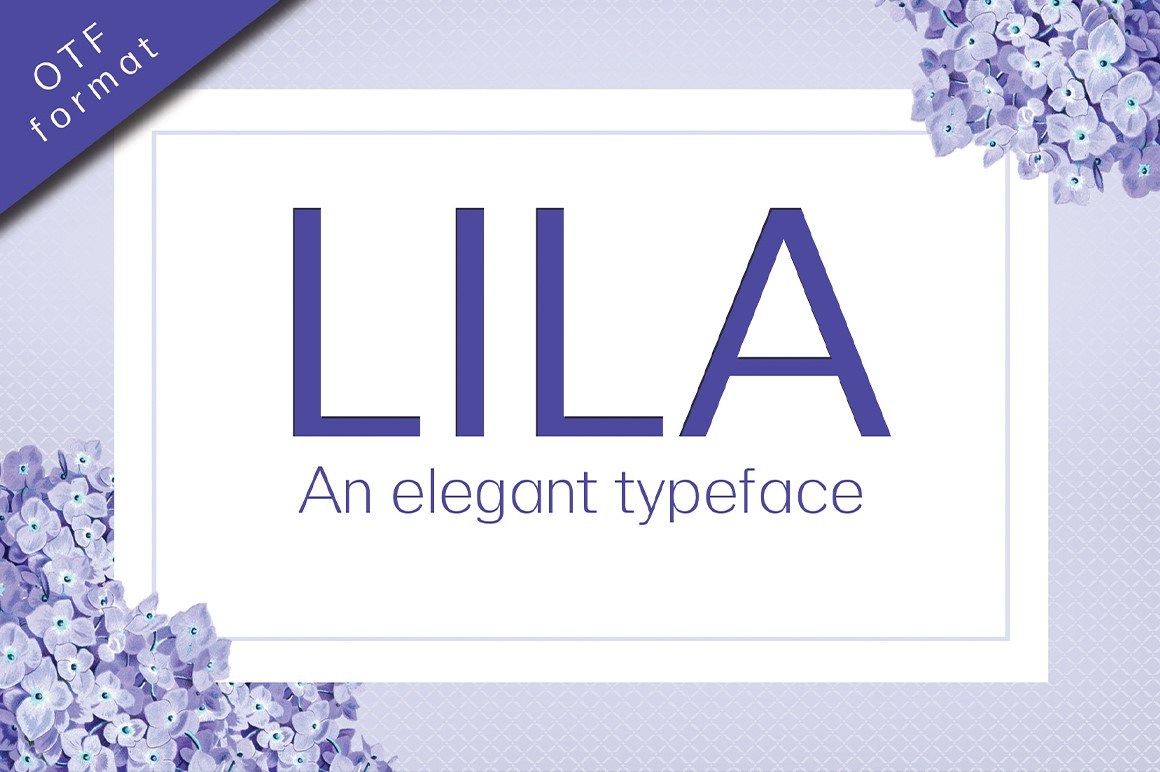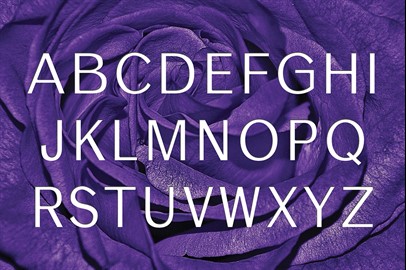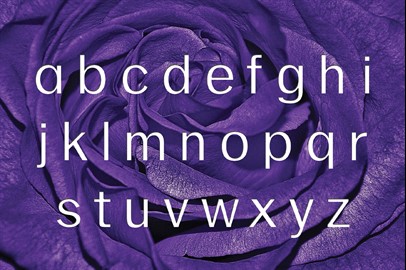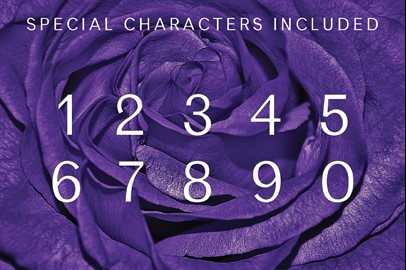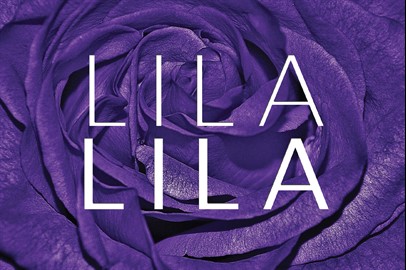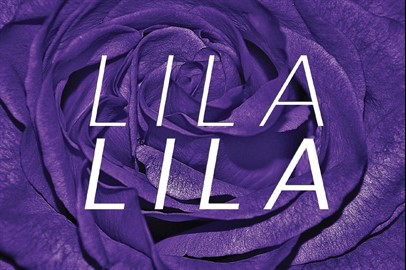
Lila Typeface: A Modern Sans Serif Font
A simple yet elegant font. Lila is a modern typeface with a style that makes it perfect for use in your design projects.